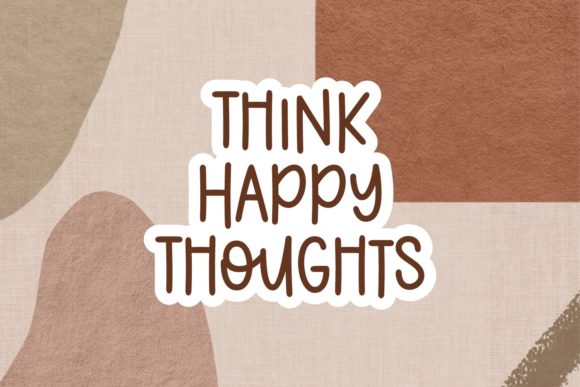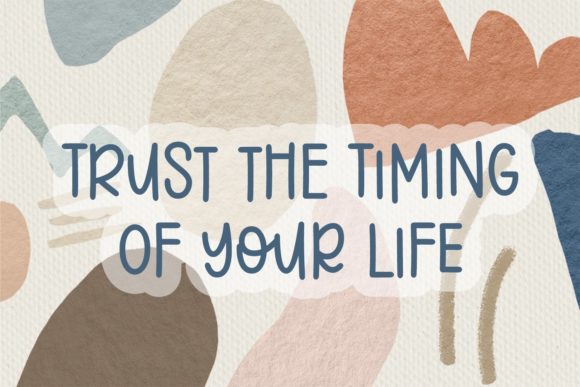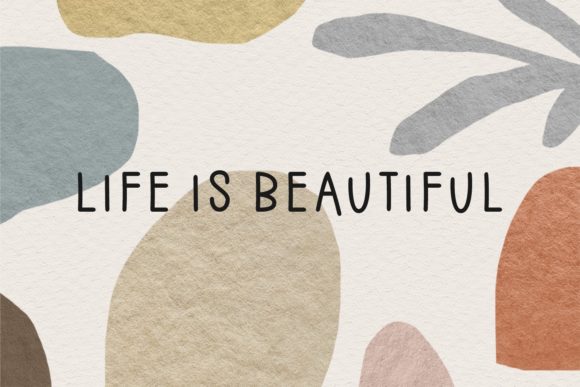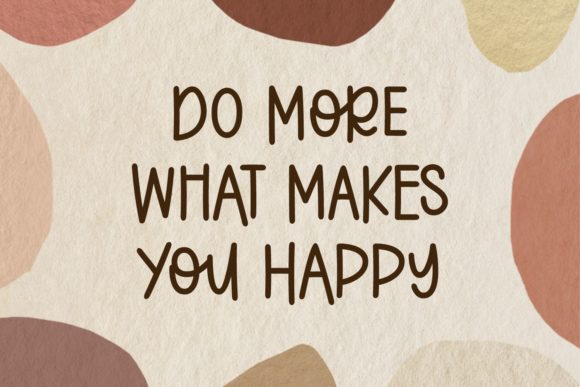
About Angel Without Wings Font
Angel Without Wings is a lively handwritten font with a bouncy and modern nature. It will be sure to bring an element of fun to your next craft, print, or design!